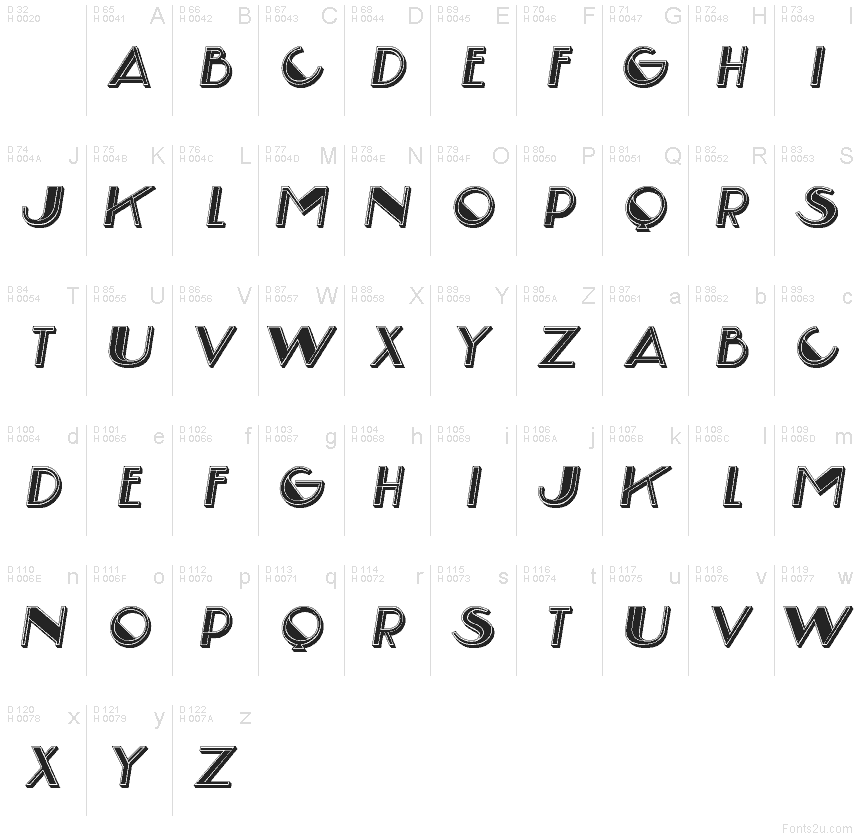
Louvre Italic
\nLouvre Italic font is a free display font designed by Vladimir Nikolic. Each character reveals a unique and sophisticated style with retro elements that appear most in the rounded elegant endings. The typography takes inspiration from art and geometric shapes to become the perfect choice for direct combining with both images and decorations.
Use Louvre italic for Logos, book covers, ale posts, social media ads, packaging designs, app user interfaces, website headers/footers. Other usage purposes include but are not limited to brochures and flyers such as event announcements.